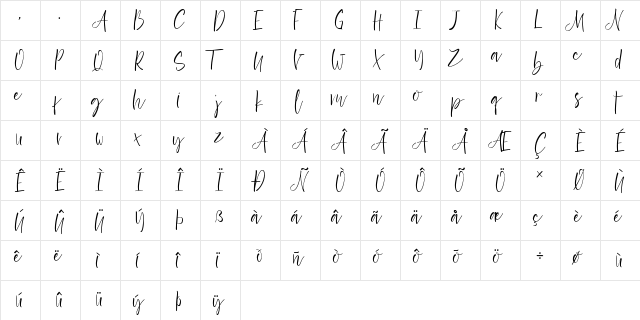
Exotico Demo Regular
Exotico Demo is a composed and adaptable typeface that performs quietly and consistently across a wide range of design contexts.